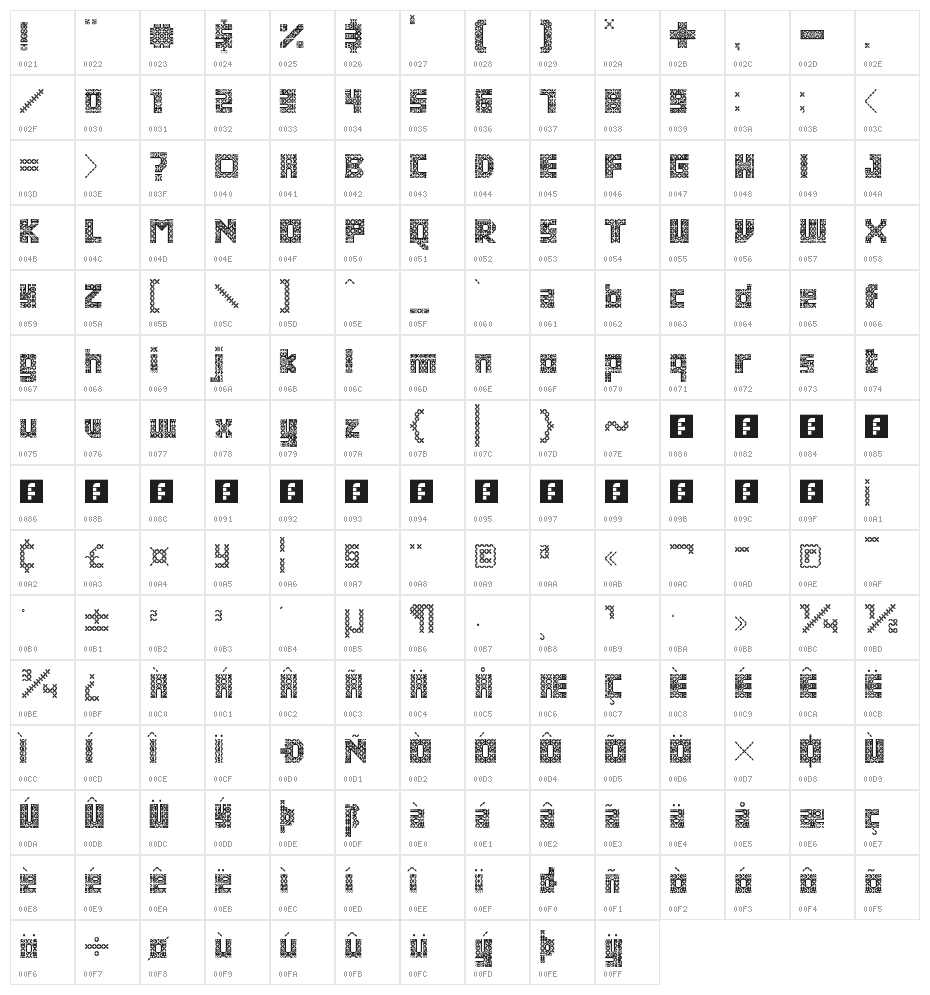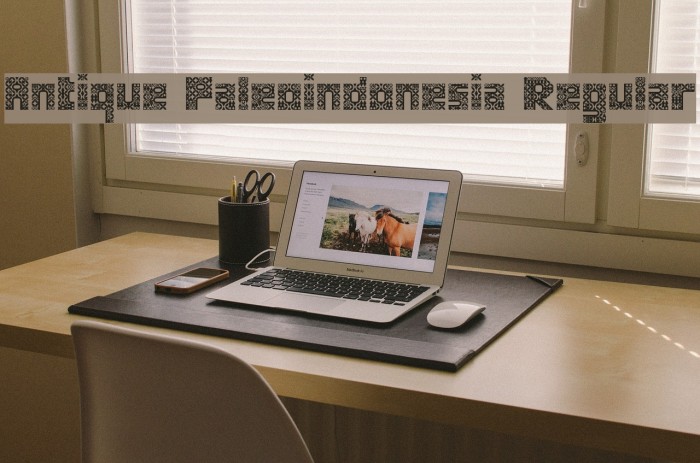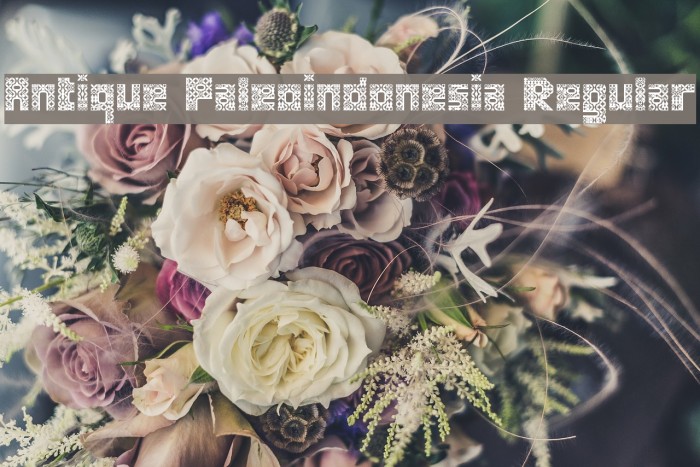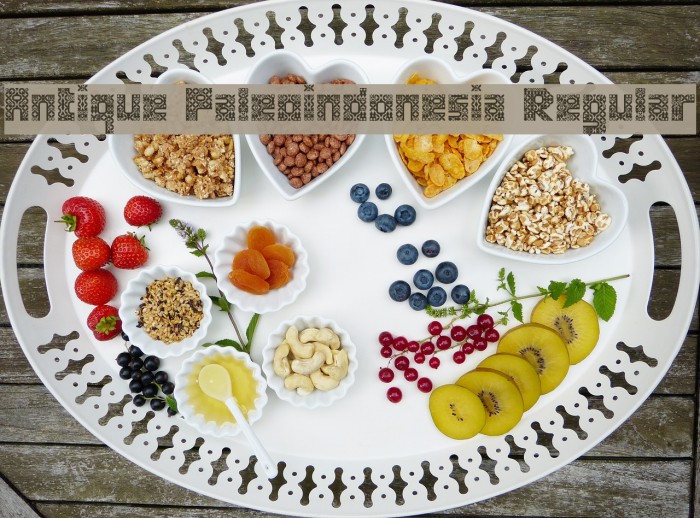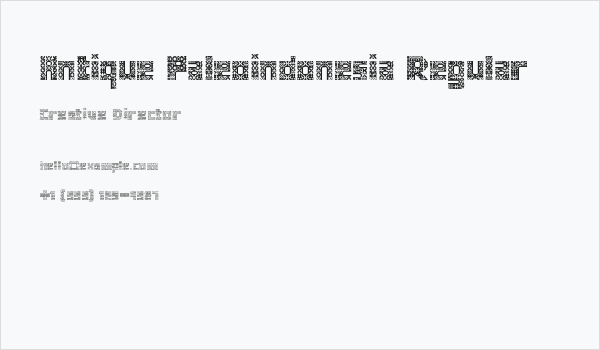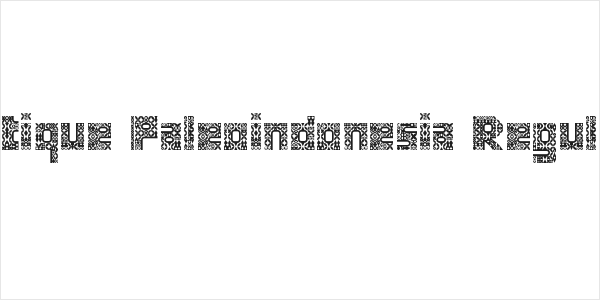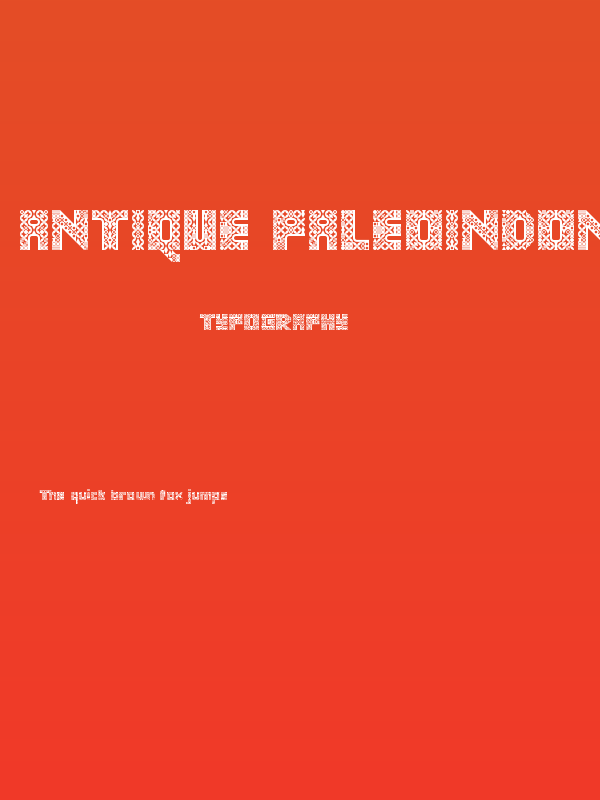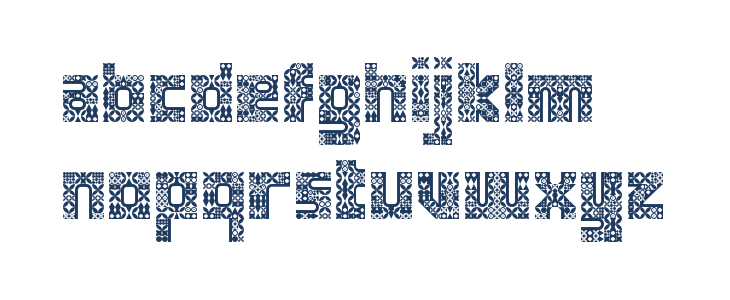
Antique Paleoindonesia Regular Font
Antique Paleoindonesia Regular Description
This font features a highly decorative and intricate design, reminiscent of ancient patterns and motifs. Each character is filled with detailed geometric shapes and symbols, creating a textured and ornate appearance. The uppercase and lowercase letters, as well as the numbers and special characters, all share this complex patterning, making the font stand out as a unique and artistic choice. The style evokes a sense of history and cultural richness, suitable for projects that aim to capture an antique or exotic aesthetic.
| Proposed Projects | Ideal for cultural event posters, historical themed designs, artistic book covers, and decorative logos. |